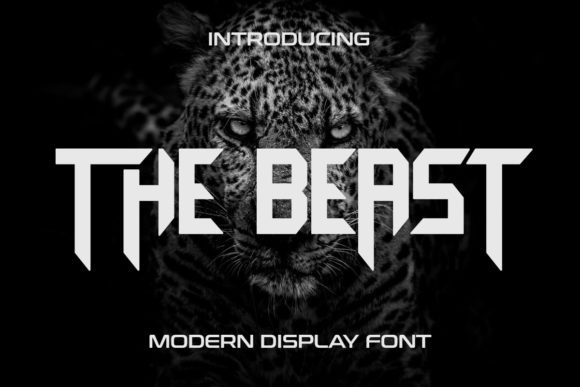
The Beast Display Font
This is a modern styled display typeface that will make your work look both cool and interesting. Made from font designer named RoninDesign. This font is ideal for logos, posters, business cards and cover designs. It is PUA encoded which means you can access all of the glyphs and swashes with ease!